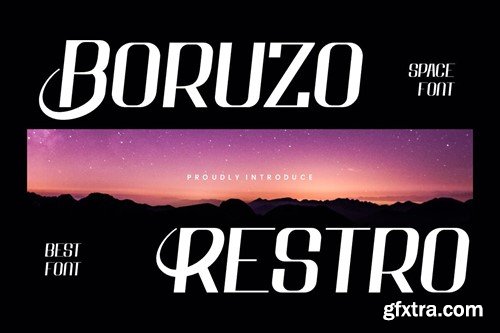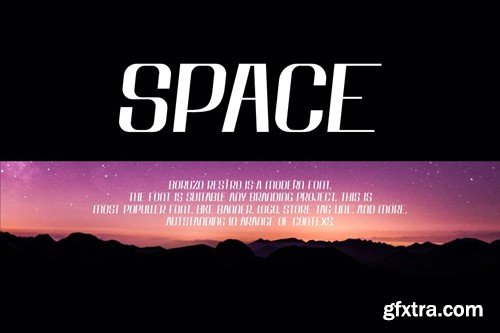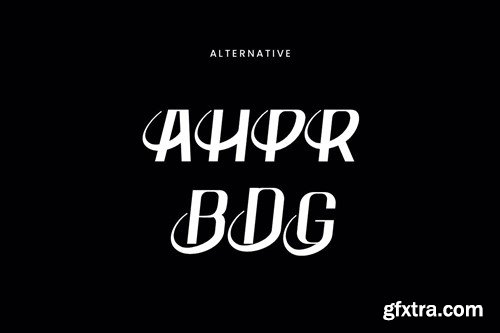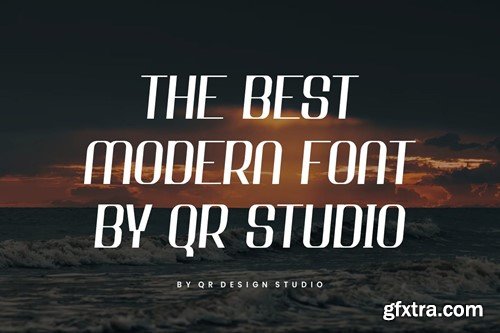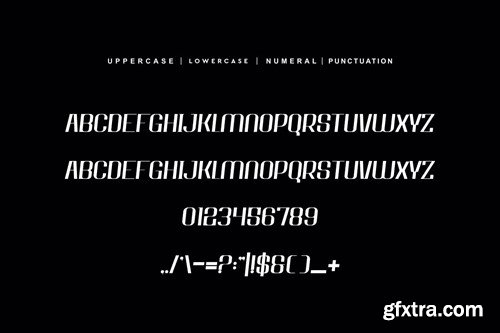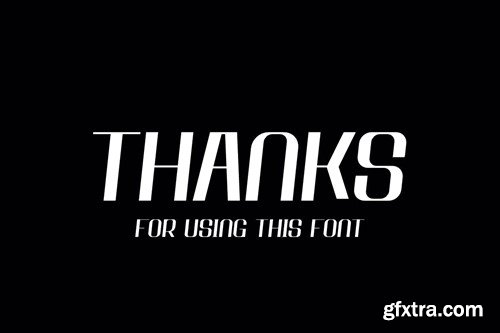
Boruzo Restro - Modern & Space Font 6QD62XT
Boruzo Restro - Modern & Space Font
Boruzo Restro Font is a sans serif and authentic display font. The font is suitable for any branding project like poster, logo, sport, and many more. Outstanding in a wide range of contexts.